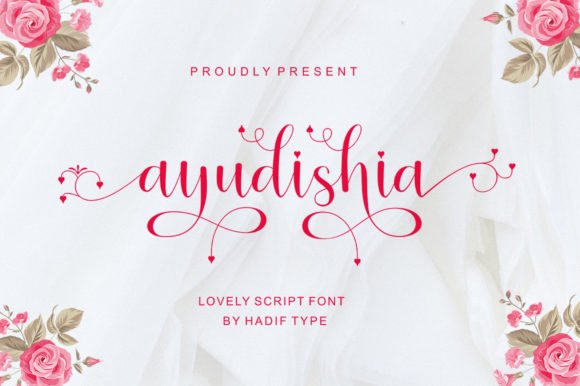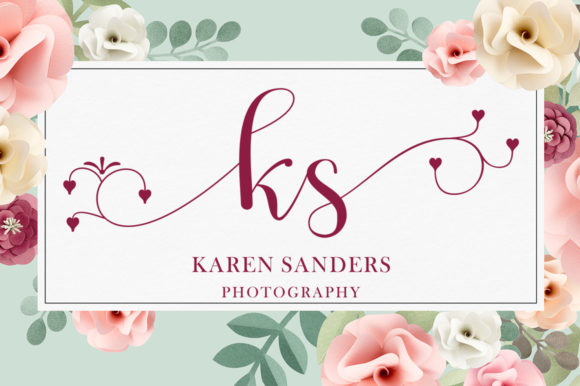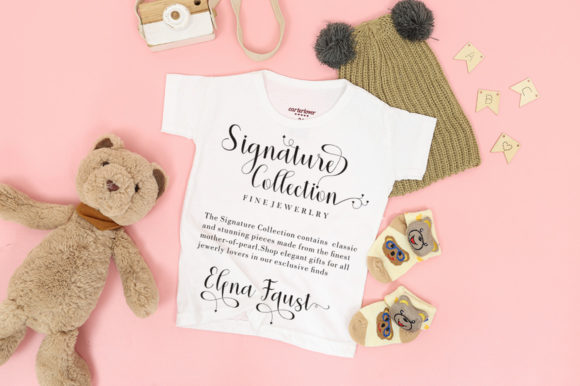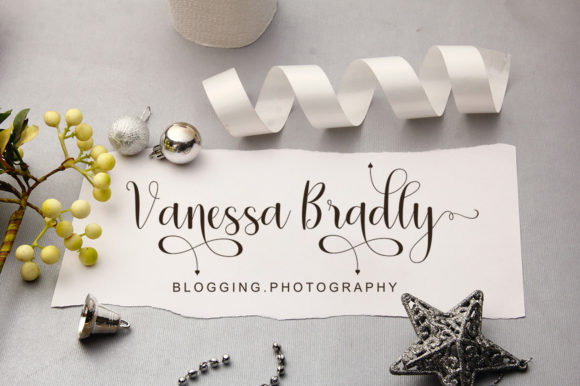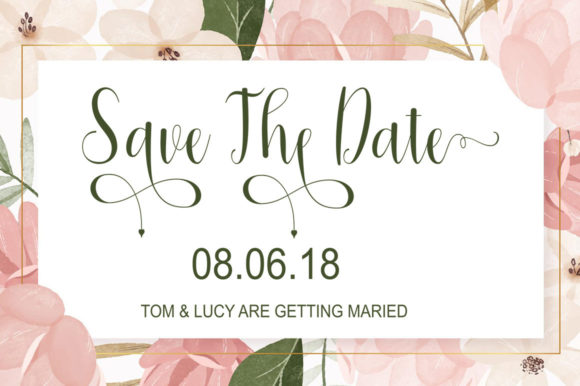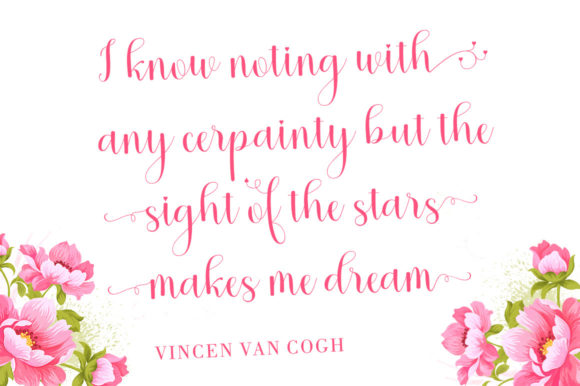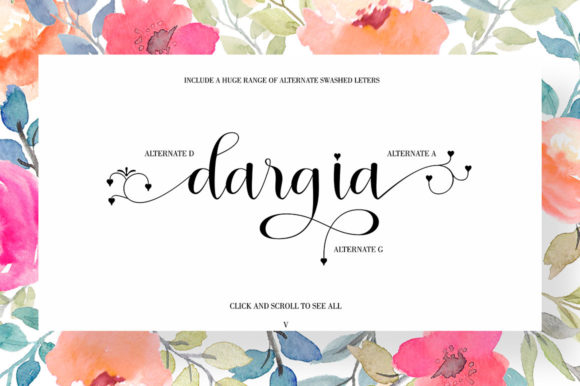
Unlock the Elegance of Ayudishia Font
Have you ever found yourself scribbling in your notebook, lost in the flow of your thoughts, and suddenly, a beautiful phrase emerges? The one that makes you feel like you’re the only one who understands the language of elegance and sophistication? That’s the magic of creating with the right tools, and today, we’re excited to introduce you to the Ayudishia Font, a handwritten masterpiece that will transport your designs to a world of timeless beauty.
Ayudishia Font is a PUA encoded, elegant handwritten font that seamlessly blends classic and modern calligraphy styles, making it the perfect addition to any designer’s toolkit. With its balanced and varied strokes, this font is sure to elevate your designs to new heights, giving you the freedom to create spectacular, one-of-a-kind pieces that speak directly to the heart.
Ayudishia Font Key Features
- Unique Characteristics: This font features a unique blend of traditional and modern elements, with intricate details and subtle flair, making it ideal for creative and artistic projects.
Ayudishia Font Review
At first glance, I was drawn to the unique and exotic feel of the Ayudishia font. It’s a great option for designers looking to add a touch of cultural flair to their projects.
- ✨ Unique and authentic design inspired by ancient scripts
- ✨ Versatile and can be used for a variety of projects, from logos to body text
- ✨ Elegant and refined feel, perfect for luxury or high-end brands
- ⚠️ Limited character set and language support, which may be a concern for designers working on multilingual projects
- ⚠️ Some characters may be difficult to read or recognize, particularly for users who are not familiar with the script
- ⚠️ May not be suitable for projects where readability is a top priority
The Ayudishia font is a great choice for designers looking to add a unique touch to their projects. While it may have some limitations, its elegant and refined feel makes it a great option for luxury or high-end brands. However, designers should be aware of the potential challenges with character set and language support.
Ayudishia Font is commonly used in:
– Creative projects like posters, flyers, and brochures.
– Branding and marketing materials like logos and business cards.
– Digital design projects like websites and social media graphics.